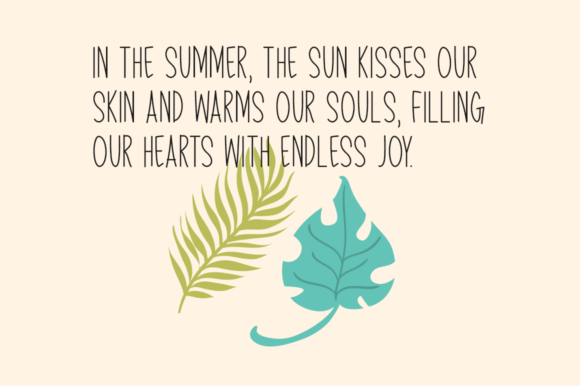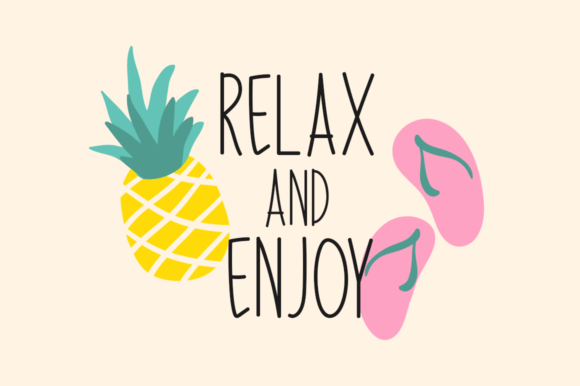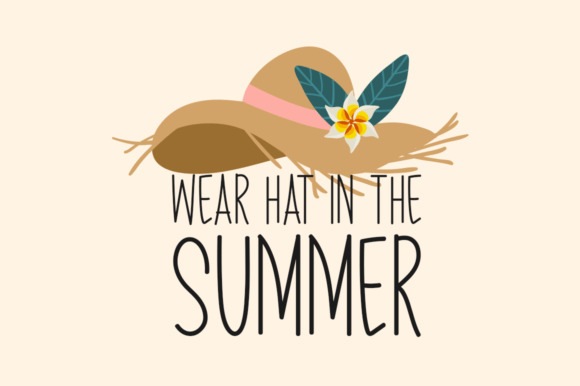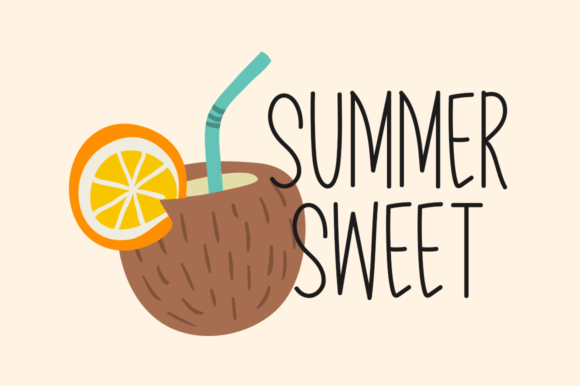
The Perfect Font for Your Summer Vibes
As a designer, have you ever been stuck trying to convey the carefree feeling of a sunny summer day? You know, that feeling when the world seems to slow down and all that’s left is the sound of laughter and the smell of freshly cut grass? That’s exactly the vibe you want to capture in your next design project, and that’s where I Love Summer Font comes in.
This sweet and friendly handwritten font is the perfect companion for your summer-themed designs, from beachy invitations to fun-filled social media graphics. With its natural and unique style, the possibilities are endless, and the only limit is your imagination!
Whether you’re a seasoned designer or just starting out, I Love Summer Font is a valuable addition to your toolkit. Its versatility and charm make it a go-to choice for creatives looking to add a touch of personality to their work.
I Love Summer Font Key Features
- Font Family: I Love Summer, a playful and vibrant font designed for summer-themed projects.
- Unique Characteristics: Features a unique blend of handwritten and script elements, with a touch of summer-inspired flair, including sun, beach, and wave motifs.
I Love Summer Font Review
Overall, I think “I Love Summer Font” is a visually appealing font that’s perfect for projects centered around summer vibes. Here are some things that work well:
- ✨ The font has a nice, playful feel to it, making it great for titles and headings in designs related to summer, beach, or vacation.
- ✨ The font is highly customizable, which is a big plus for designers. You can easily adjust the size, color, and style to fit your project’s needs.
- ✨ The font is also highly legible, even at small sizes, making it a great choice for body text or captions.
- ⚠️ The font may not be suitable for projects that require a more professional or formal tone. Its playful feel may not be a good fit for corporate or business designs.
- ⚠️ The font may not be as versatile as some other fonts on the market, which could limit its use in certain design contexts.
Overall, I’d give “I Love Summer Font” 4 out of 5 stars. It’s a great choice for designers looking to add a fun, summer vibe to their projects, but it may not be the best fit for more formal or professional designs.
Getting the Most Out of I Love Summer Font
For the best results, use the I Love Summer font in combination with bright and pastel colors to evoke a summer vibe. You can also experiment with different font sizes and styles to create a visually appealing design.
The I Love Summer font is perfect for creating summer-themed designs, such as beach invitations, summer party posters, and vacation advertisements. It’s also great for adding a playful touch to your social media graphics and marketing materials.
Compared to I Love Summer Font, Great Vibes has a more refined and sophisticated look, making it suitable for a wider range of designs. While I Love Summer Font is more playful and childlike, Great Vibes has a more adult and elegant feel.